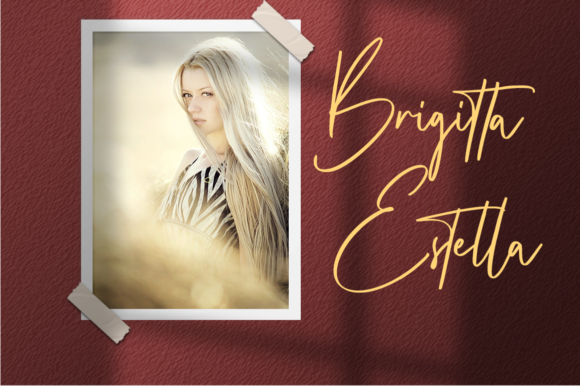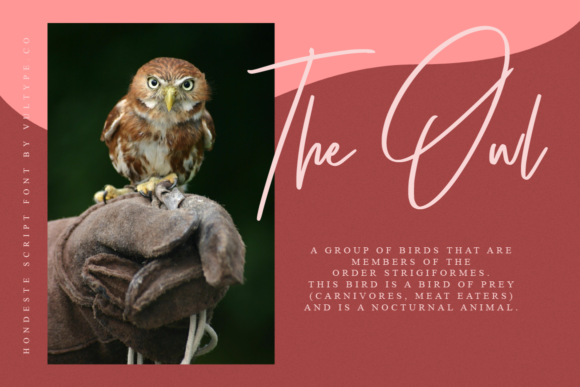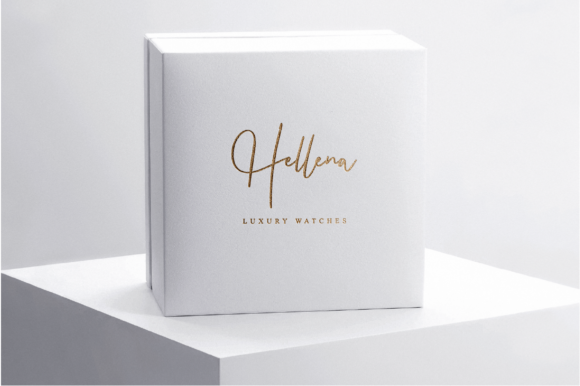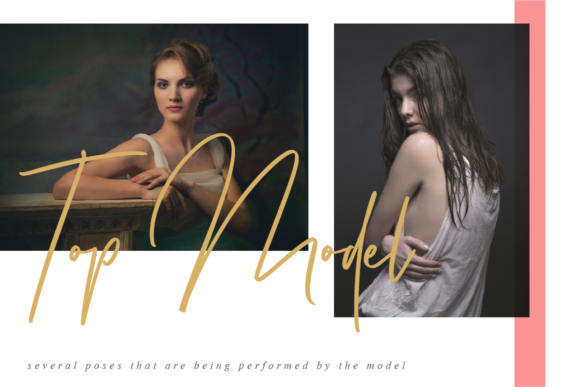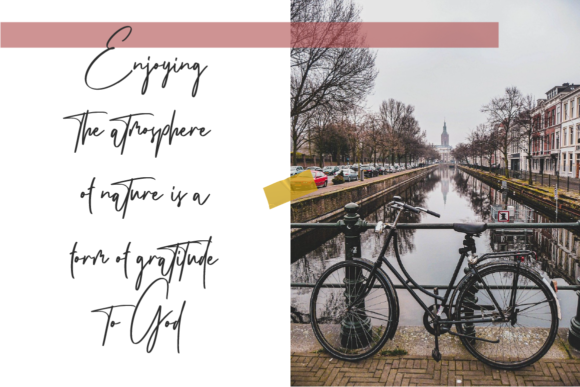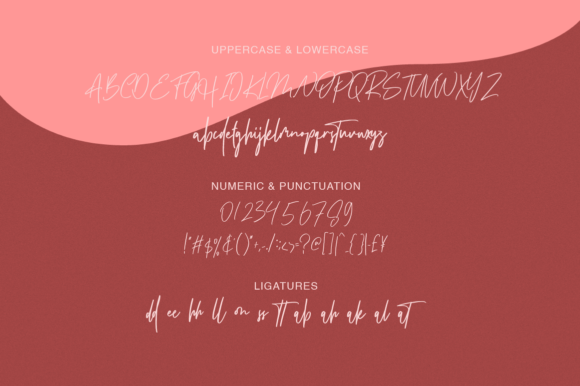
Introduction to Hondeste Font
Hondeste is a delicate script font that has an incredibly soft and elegant line.
It looks stunning on wedding invitations, thank you cards, quotes, greeting cards, logos, business cards, and every other design which needs a handwritten touch It features a varying baseline, smooth lines, gorgeous glyphs, and stunning alternates.
Key Features of Hondeste Font